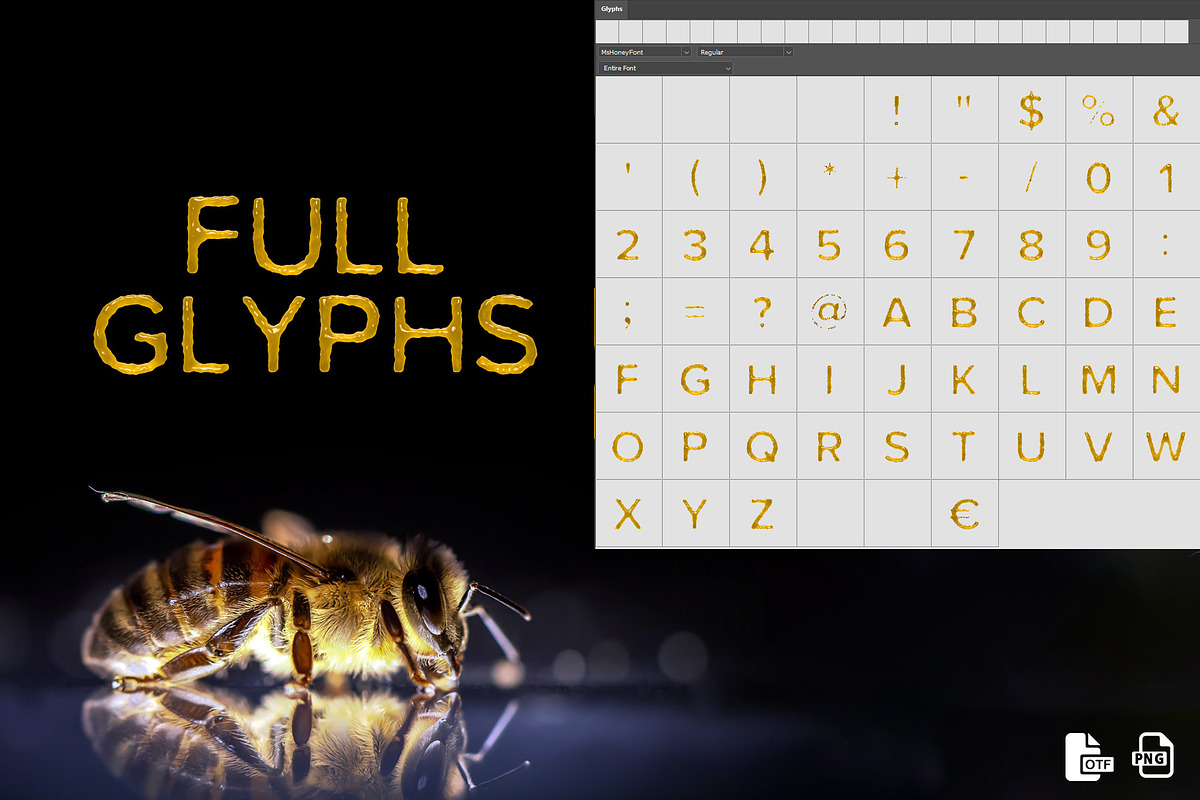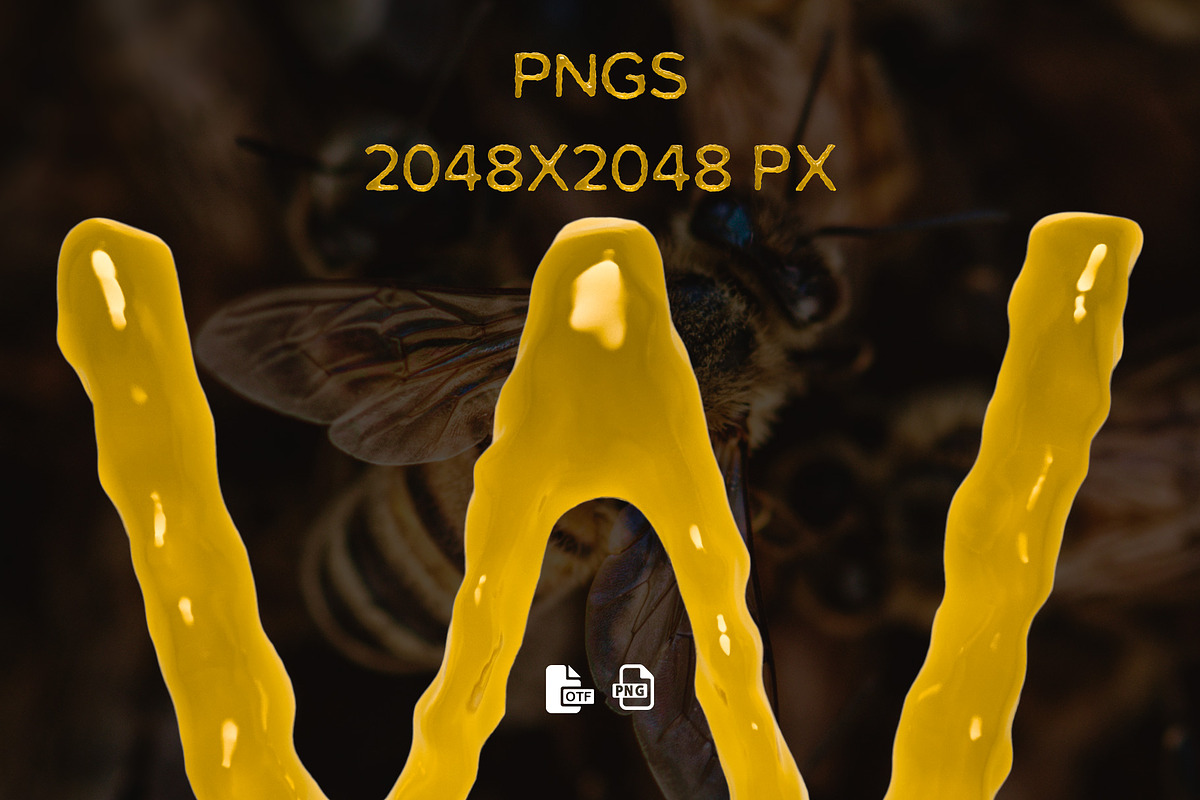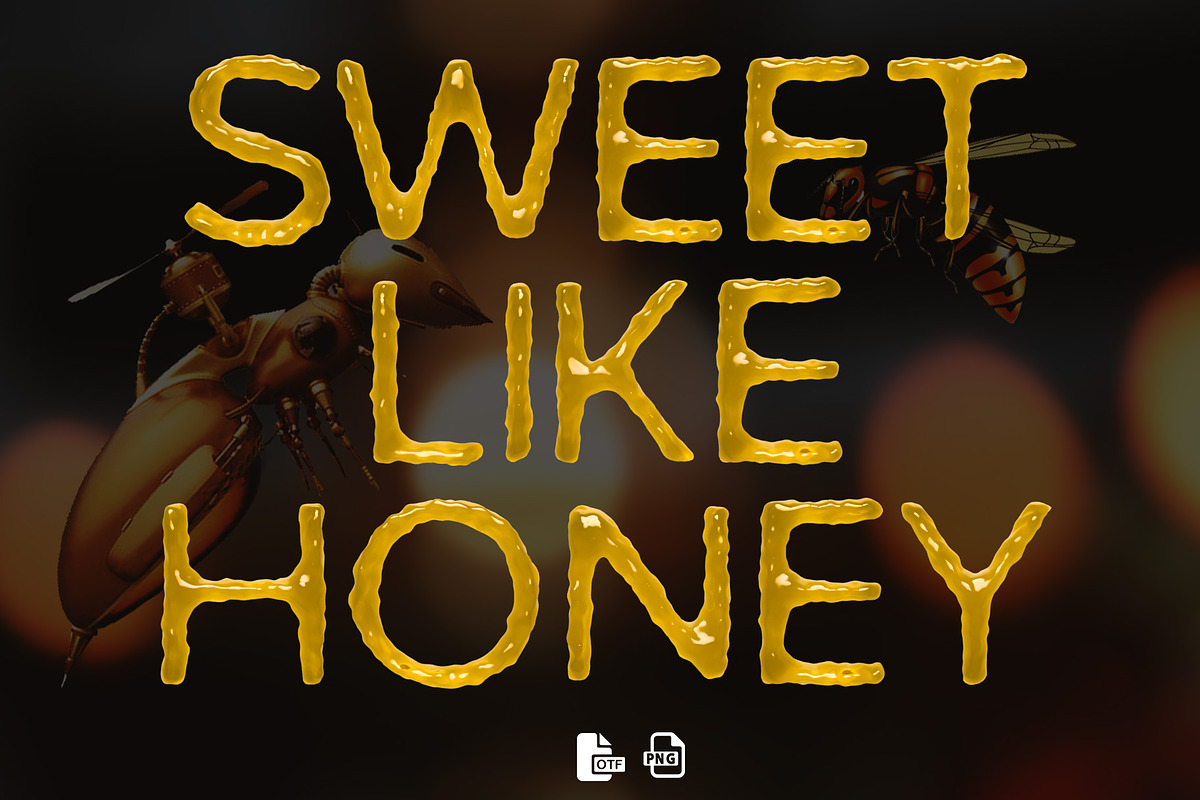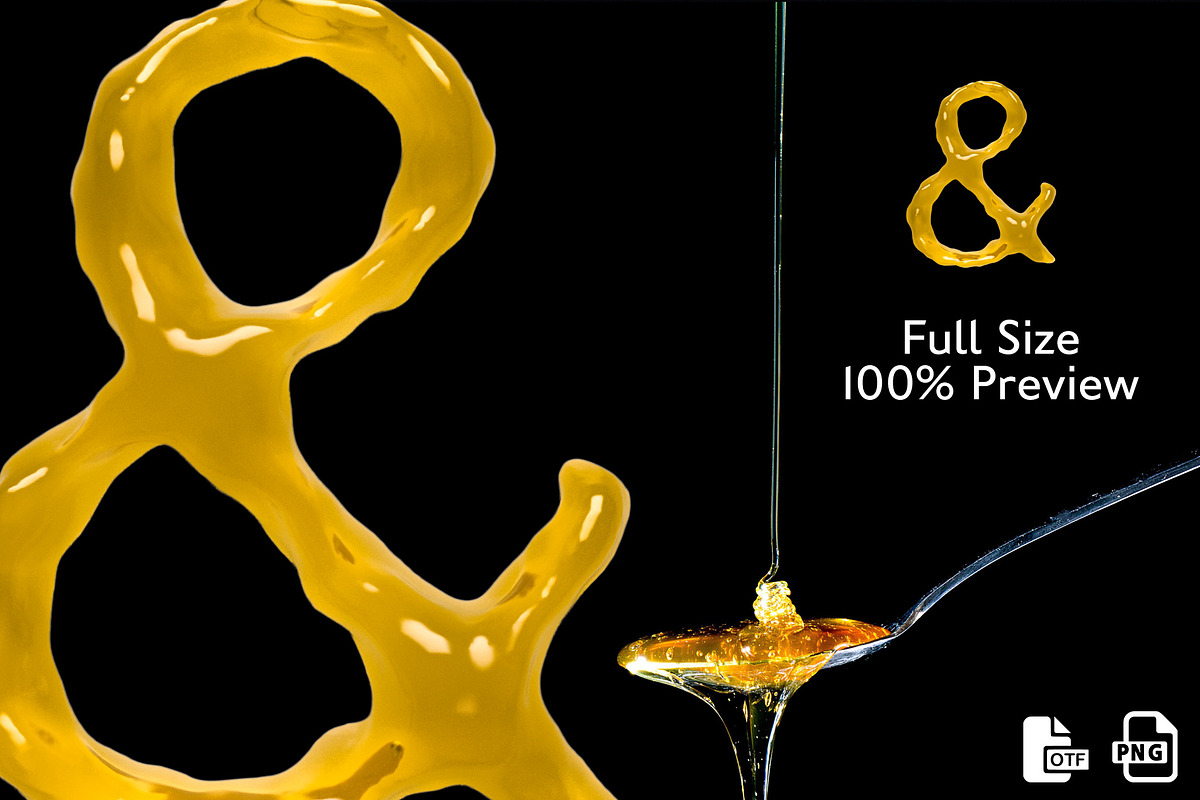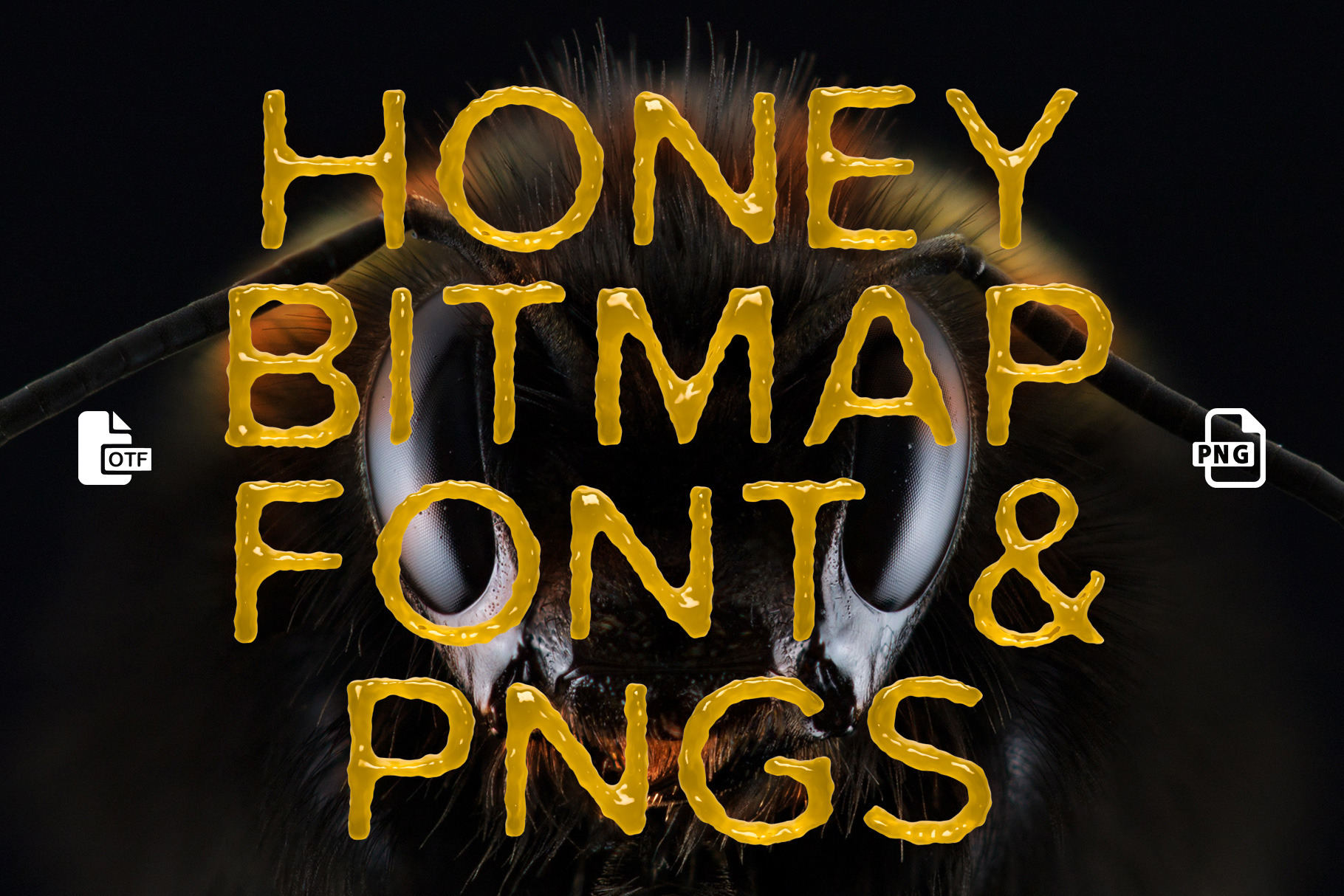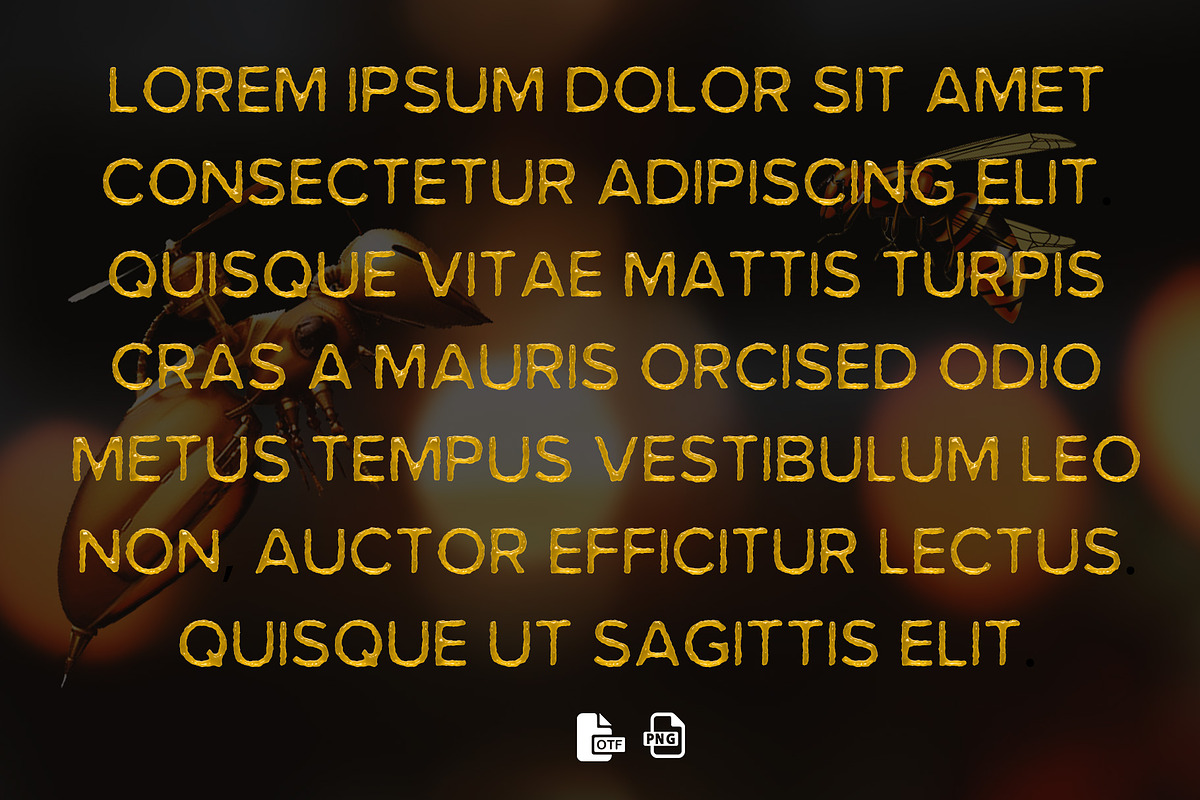
Ms Honey Bitmap Font & PNGs
MS Honey Opentype SVG Color Bitmap Font & PNGs
Each letter is modelled and rendered in a 3D Application, also converted into an Opentype SVG (Color Font)
- Basic western uppercase letters
- Basic Punctuation and Symbols